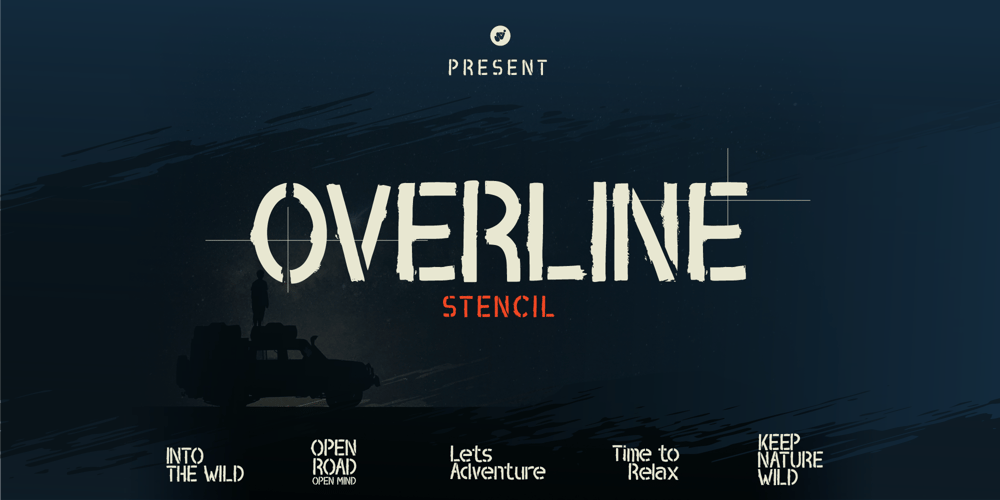
Overline Stencil Font Family was designed by Wahyu Aji Prasetyo and published by WAP Type. Overline Stencil contains 1 styles and family package options. Overline Stencil font is perfect for your up coming projects. Such as logo branding, editorial design, fashion, stationery design, sport design, blog design, modern advertising design, card invitation, art quote, home decor, book/cover title, special events and any more.